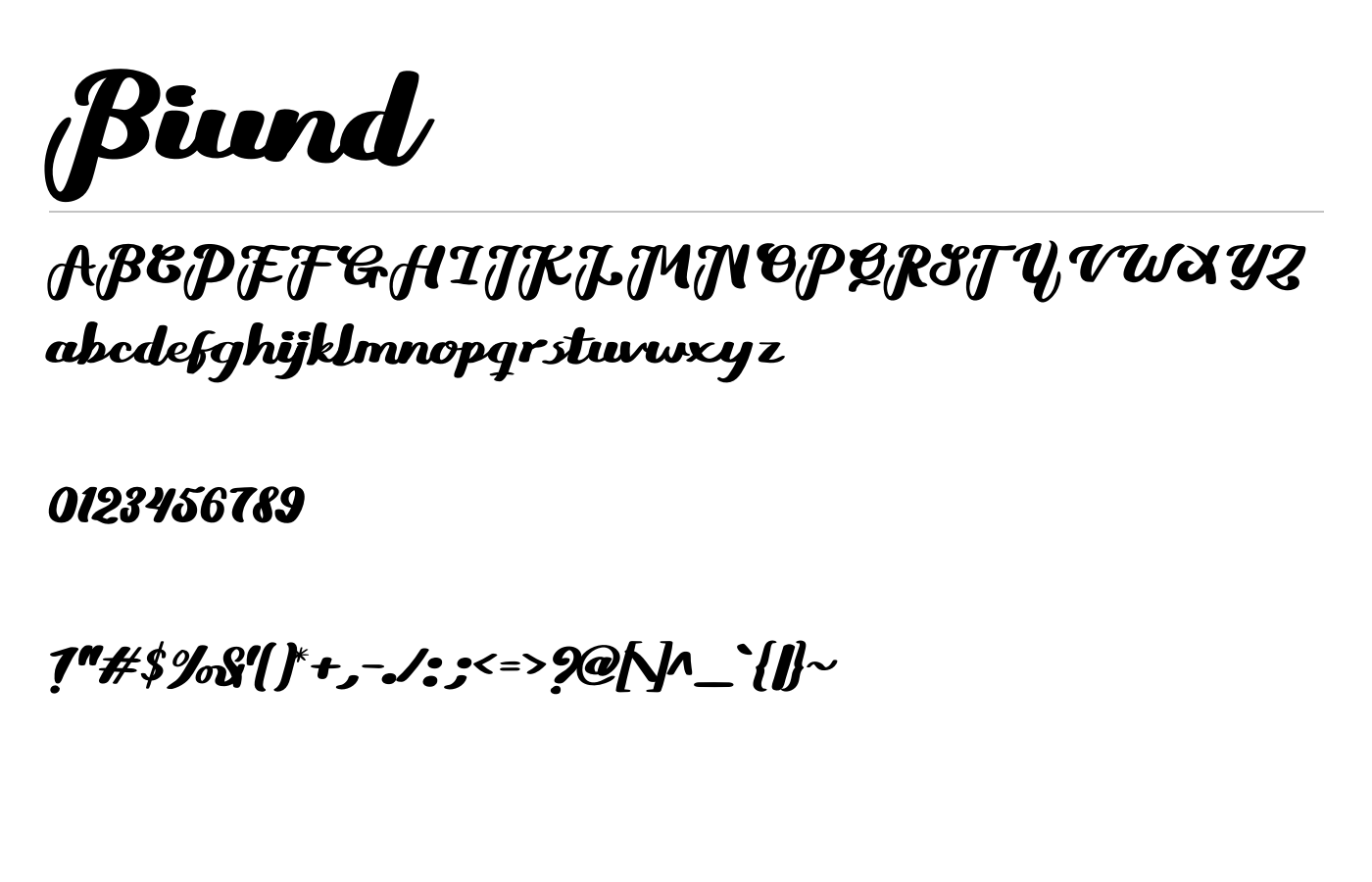
Biund is a bold, cursive script font that exudes a lively and friendly personality with its smooth, rounded strokes and moderate contrast. Its flowing letterforms and italic style give it a personal, handwritten feel, making it ideal for creative branding, invitations, and logo designs that seek a warm, approachable vibe. This font works best in display use where its charming and dynamic character can stand out and add a touch of casual elegance.
Biund Font
About Biund Font